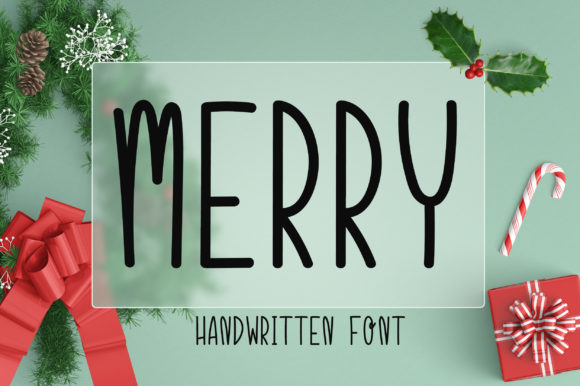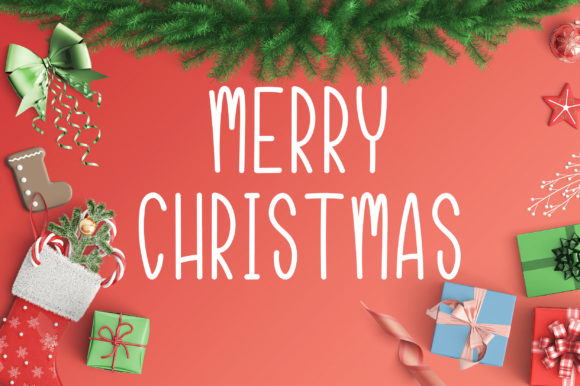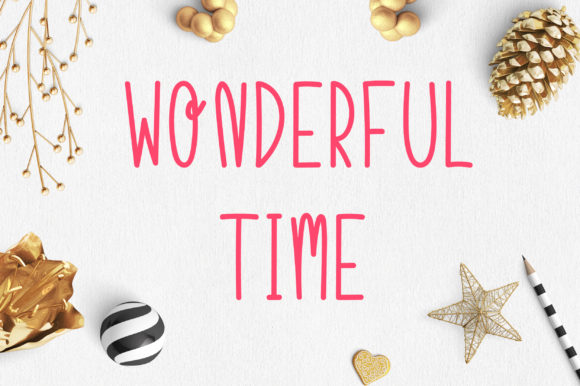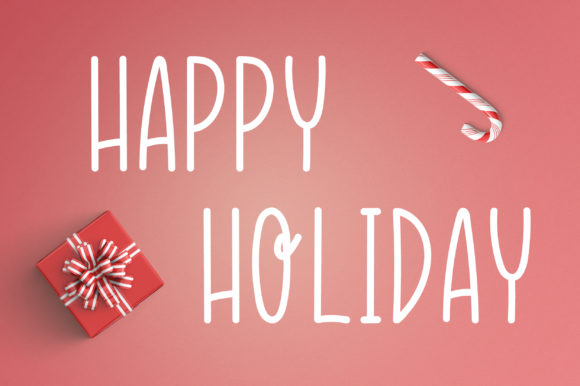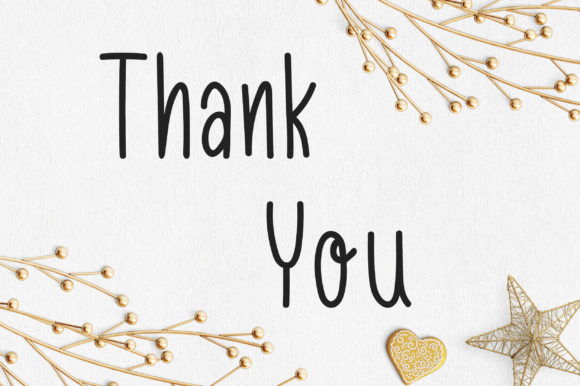
Merry Font
About Merry Font
Merry is a delightful and charming handwritten font that captures the essence of simplicity and sweetness. Here are some reasons to fall in love with Merry and its versatile style:
1. Simplicity: Merry’s beauty lies in its simplicity. The font’s clean lines and unpretentious strokes create a sense of elegance without overwhelming the design. Its straightforward and uncluttered appearance allows the message to shine through clearly.
2. Sweet and Playful: Merry exudes a sense of playfulness and joy, making it a perfect choice for designs that aim to evoke positive emotions and create a cheerful atmosphere. Its friendly and approachable nature instantly draws people in.
3. Handwritten Authenticity: Merry emulates the charm of real handwriting, adding a personal touch to your designs. It imparts a warm and human feel, making the audience feel connected and engaged with the content.
4. Versatility: Merry’s adaptability allows it to complement various design styles and themes. From casual and fun projects to more formal occasions, Merry effortlessly fits in, making it a go-to font for a wide range of creative ideas.
5. Attention-Grabbing: Despite its simplicity, Merry is eye-catching and attention-grabbing. It leaves a lasting impression on viewers, ensuring that your designs are memorable and impactful.
6. Readability: The clear and legible letterforms of Merry make it easy to read, enhancing the overall user experience and ensuring that your message gets across effectively.
7. Easy to Pair: Merry’s versatility extends to its compatibility with other fonts. It pairs well with both serif and sans-serif fonts, providing you with even more design possibilities.
8. Timelessness: Merry’s classic appeal ensures that it remains relevant and appealing over time. It is a font that will continue to captivate and resonate with audiences for years to come.
Whether you are designing greeting cards, invitations, quotes, social media posts, or any other project that requires a touch of sweetness and simplicity, Merry will be your trusty companion. Embrace the charm of Merry and let it infuse your designs with joy, warmth, and a sense of wonder.